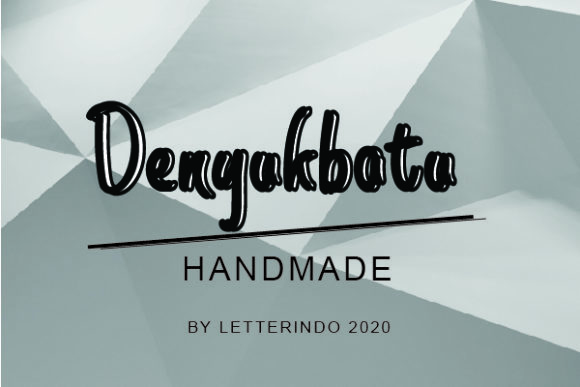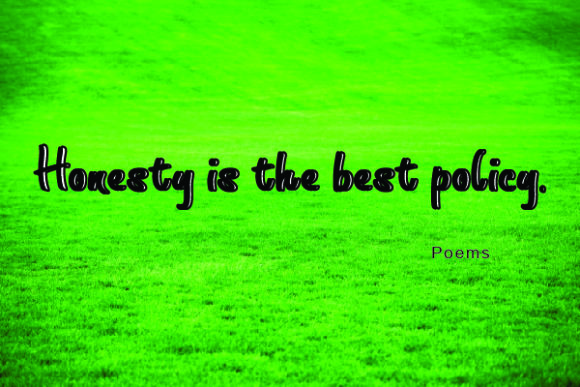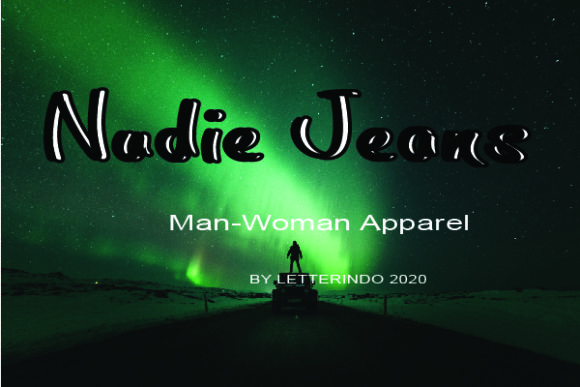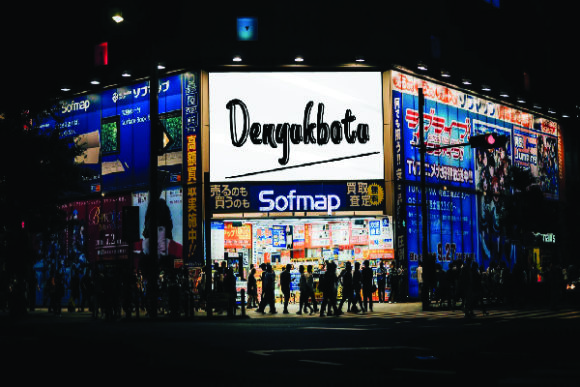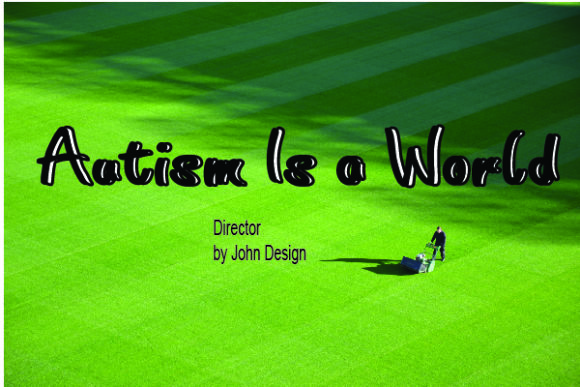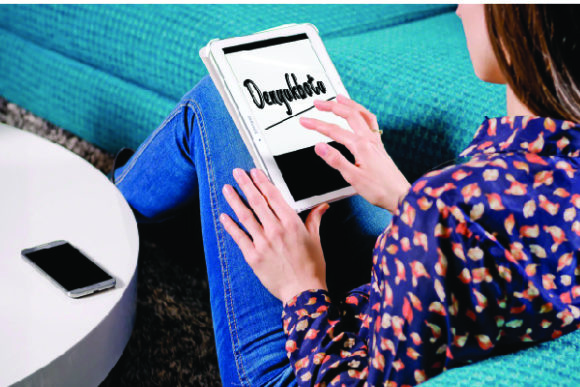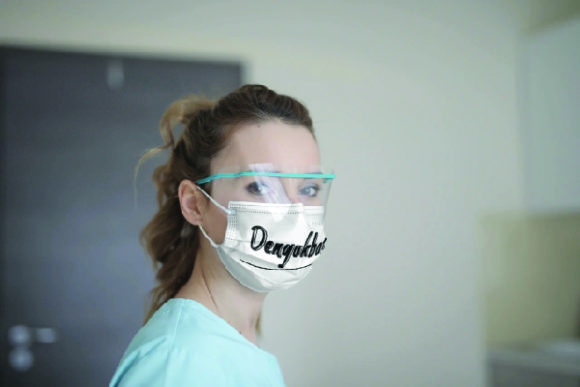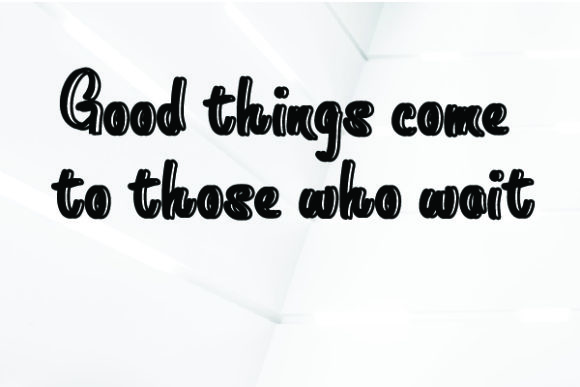
Denyukbatu Font
About Denyukbatu Font
Denyukbatu is a unique handwritten font carefully created with a distinct touch. It features an incredibly relaxed and playful style, fitting a wide range on designs.